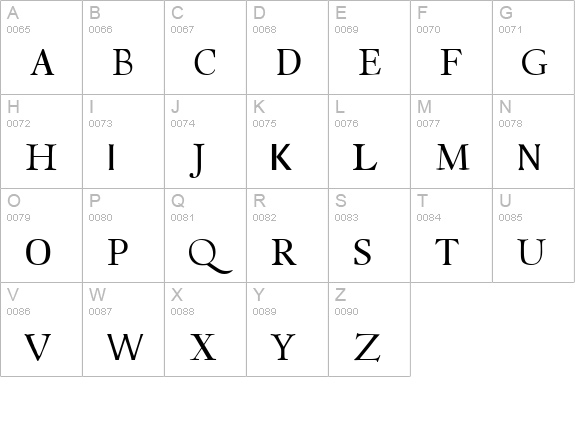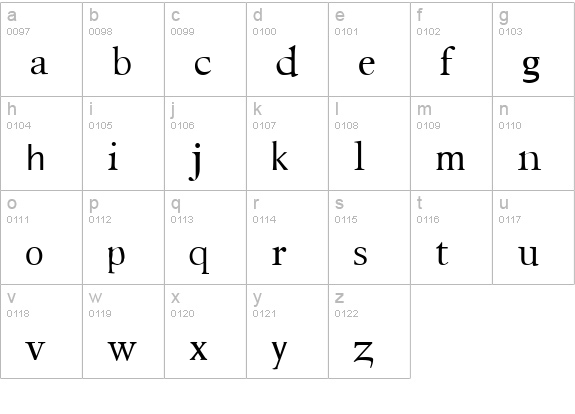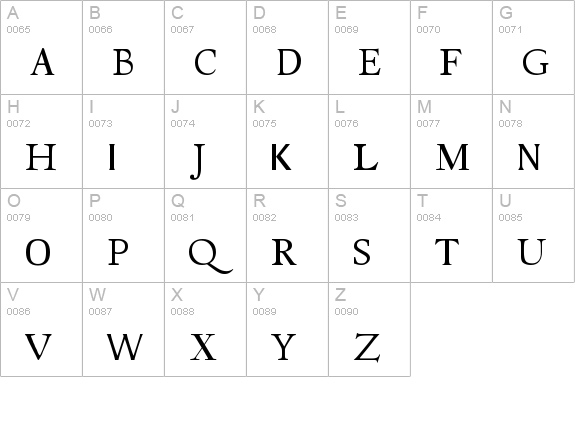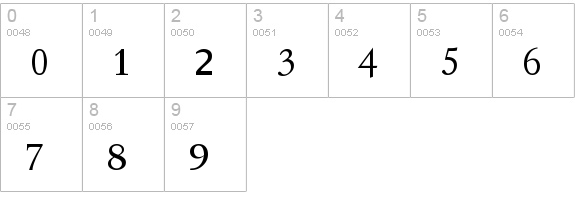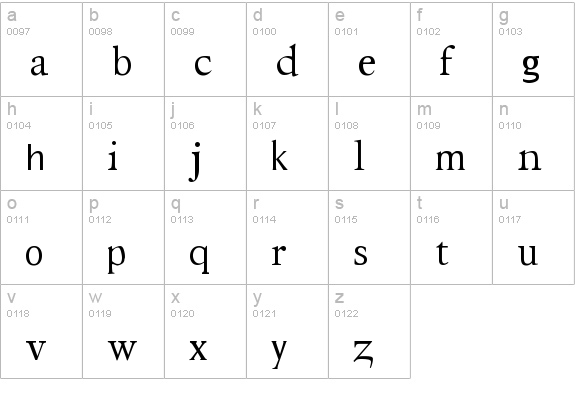
Quodlibet Regular is the standard, neutral variant in the Quodlibet typeface family \xE2\x80\x94 well suited to general body text, paragraphs, and standard typographic work.
Quodlibet Regular is a versatile and stylish font that effortlessly combines elegance with modernity. With its clean lines and balanced proportions, this font is perfect for a wide range of design projects, from branding and packaging to editorial and web design. What sets Quodlibet Regular apart is not only its impeccable design, but also the fact that it is available for free. Yes, you read that right – this amazing font can be downloaded without any cost at FontsMarket.com. Now, you can add a touch of sophistication to your projects without breaking the bank. Whether you are creating a logo for a high-end fashion brand or designing a sleek website, Quodlibet Regular is the ideal choice. Its legibility and versatility make it suitable for both headlines and body text, ensuring that your message is effectively communicated to your audience. The carefully crafted letterforms of Quodlibet Regular exude a sense of professionalism and refinement. Each character is meticulously designed to ensure optimum readability and visual impact. The generous x-height and open counters make reading effortless, while the subtle variations in stroke width add a touch of personality. Quodlibet Regular is not just a font; it is a tool that empowers designers to bring their visions to life. Its extensive character set includes uppercase and lowercase letters, numerals, punctuation marks, and special characters, providing endless possibilities for creative expression. In addition to its aesthetic appeal, Quodlibet Regular is also optimized for digital use. It is fully compatible with all major design software and can be effortlessly integrated into your workflow. Whether you are working on a print or digital project, you can rely on Quodlibet Regular to deliver outstanding results. So why wait? Visit FontsMarket.com today and download Quodlibet Regular for free. Elevate your designs with this exceptional font and unlock a world of possibilities.